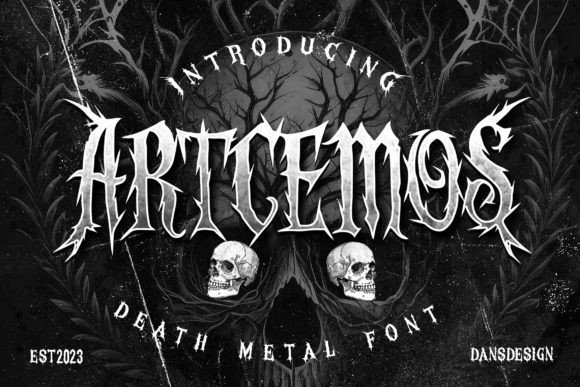
The Artcemos Font: A Horror Metal Masterpiece for Your Designs
I’ll never forget the time I was working on a tattoo design project for a client who wanted a bold, eye-catching logo that screamed “edgy” and “urban.” I spent hours scouring the internet for the perfect font, but nothing seemed quite right. That was until I stumbled upon the Artcemos Font. This distinct, highly detailed Horror Metal Font has become a staple in my design toolkit, and I’m excited to share its awesomeness with you! 😊
An Honest Review of Artcemos Font
• ✨ Unique and bold design: Artcemos Font stands out from the crowd with its intricate details and horror metal aesthetic.
• ✅ Highly legible: Despite its bold design, the font remains surprisingly legible, even at smaller sizes.
• 💡 Perfect for urban designs: The font’s edgy vibe makes it an excellent choice for retro-urban designs, tattoo business branding, and vintage-inspired projects.
While Artcemos Font is an amazing addition to any design project, there are a few things to keep in mind:
• 🤔 Limited use cases: Due to its bold and edgy design, Artcemos Font might not be the best fit for more elegant or minimalist projects.
• ⚠️ Requires careful kerning: As with any font, kerning is crucial to ensure the text looks its best. Be prepared to adjust the kerning to achieve optimal results.
The Backstory of Artcemos Font
While the true origins of Artcemos Font are shrouded in mystery, it’s said that the font was created by a team of designers who wanted to push the boundaries of typography. Inspired by the dark, edgy world of horror metal music, they crafted a font that’s as bold as it is beautiful.
Font Name Artcemos Font
Author Dansdesign
Q: What type of projects is Artcemos Font best suited for? A: Artcemos Font is perfect for urban designs, tattoo business branding, logos, vintage designs, and more.
Q: Is Artcemos Font legible? A: Yes, despite its bold design, Artcemos Font remains surprisingly legible, even at smaller sizes.